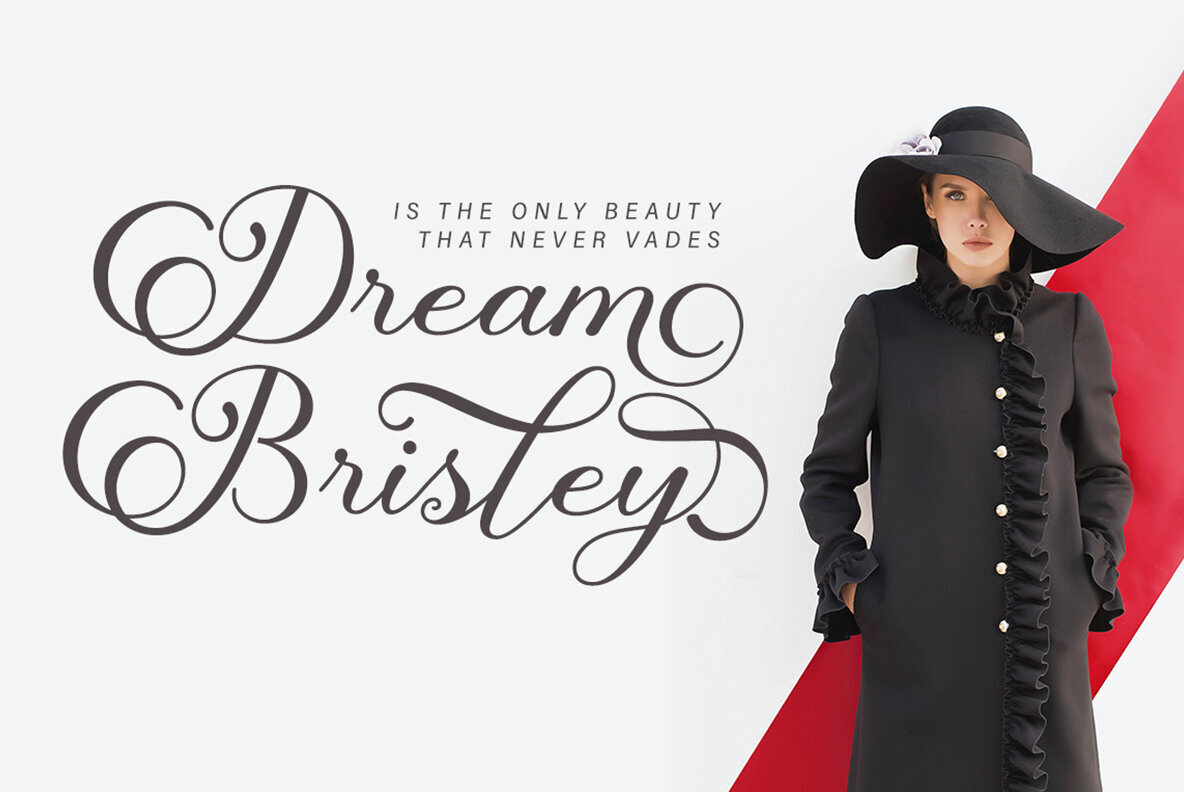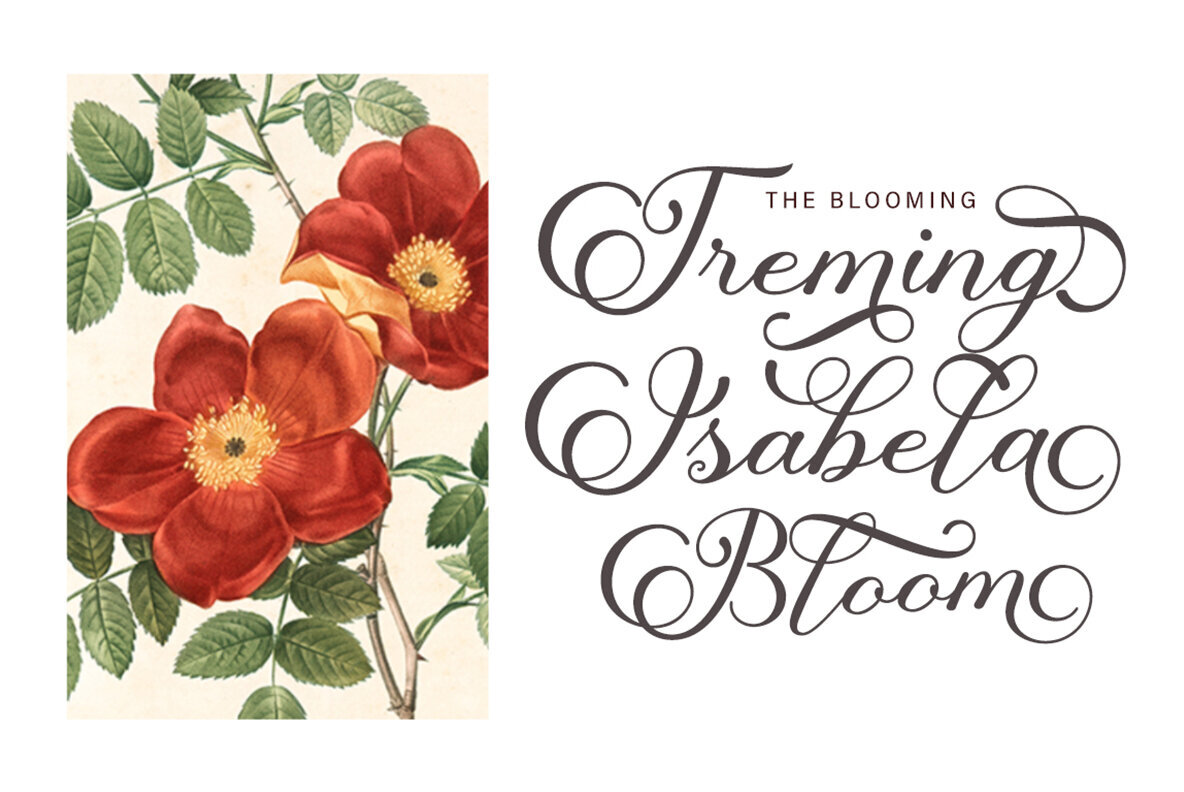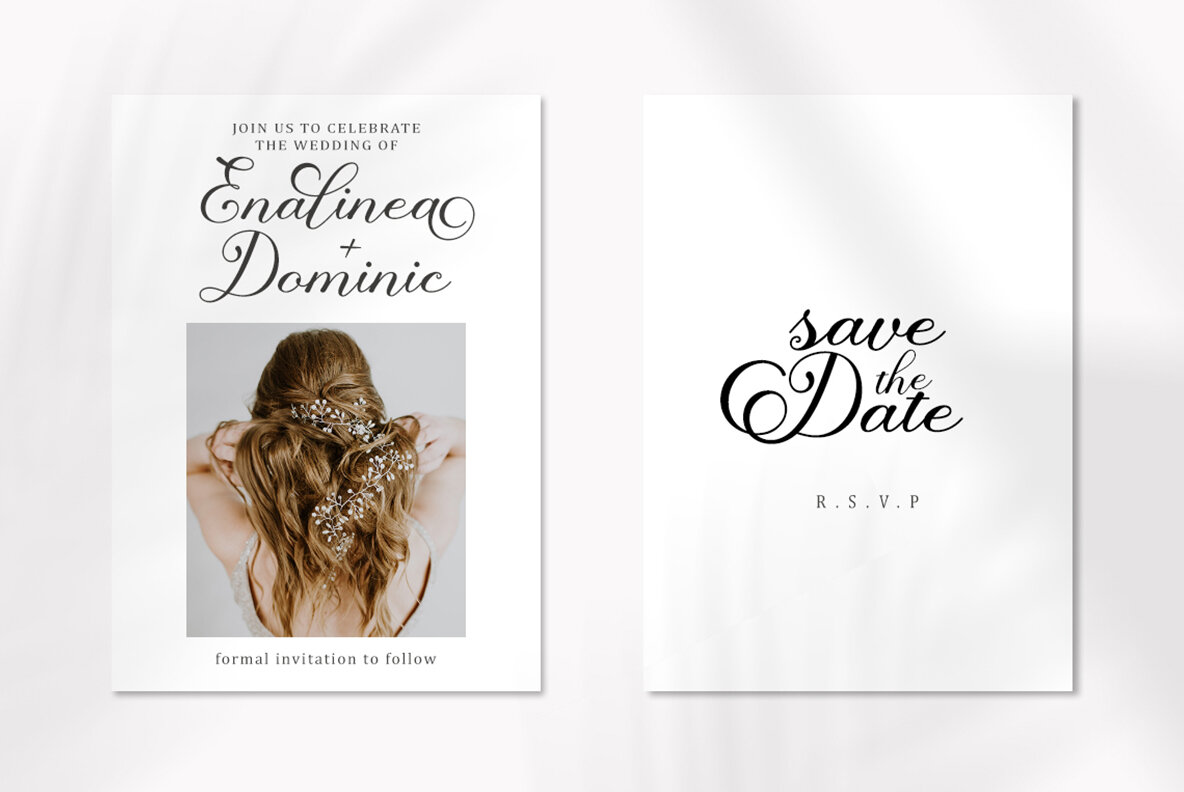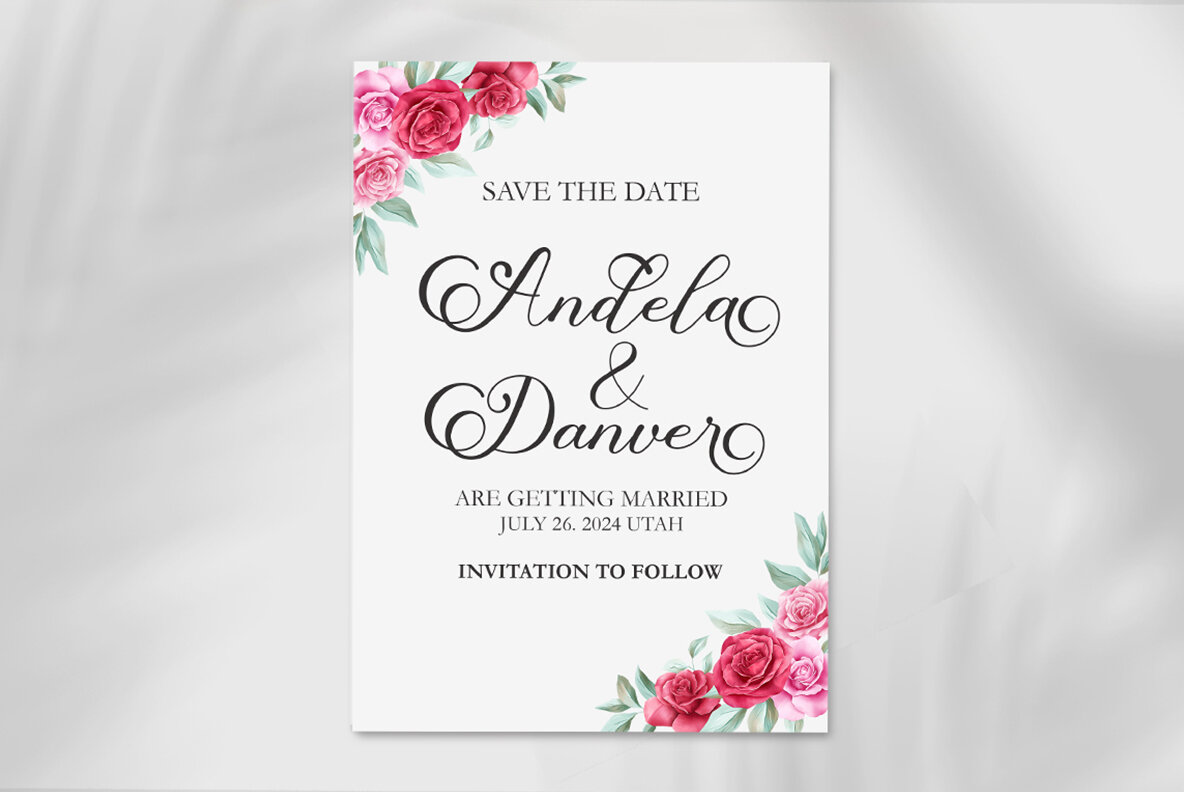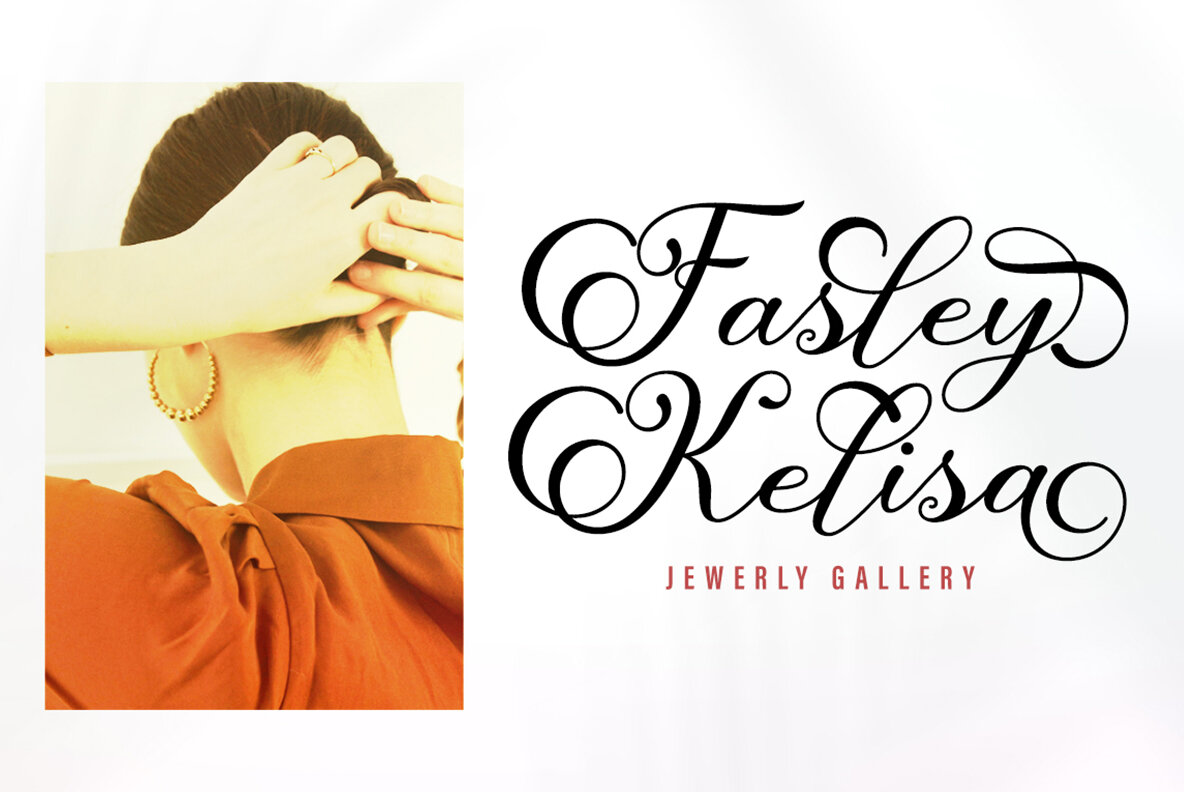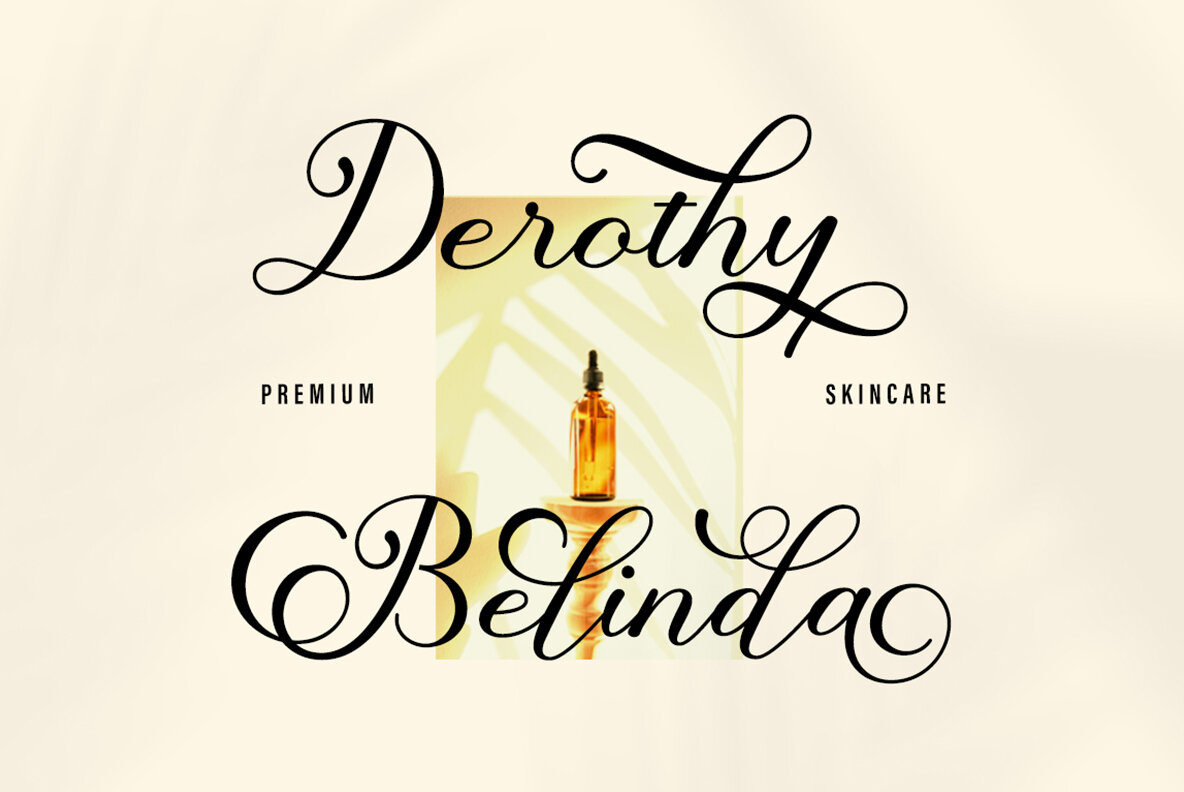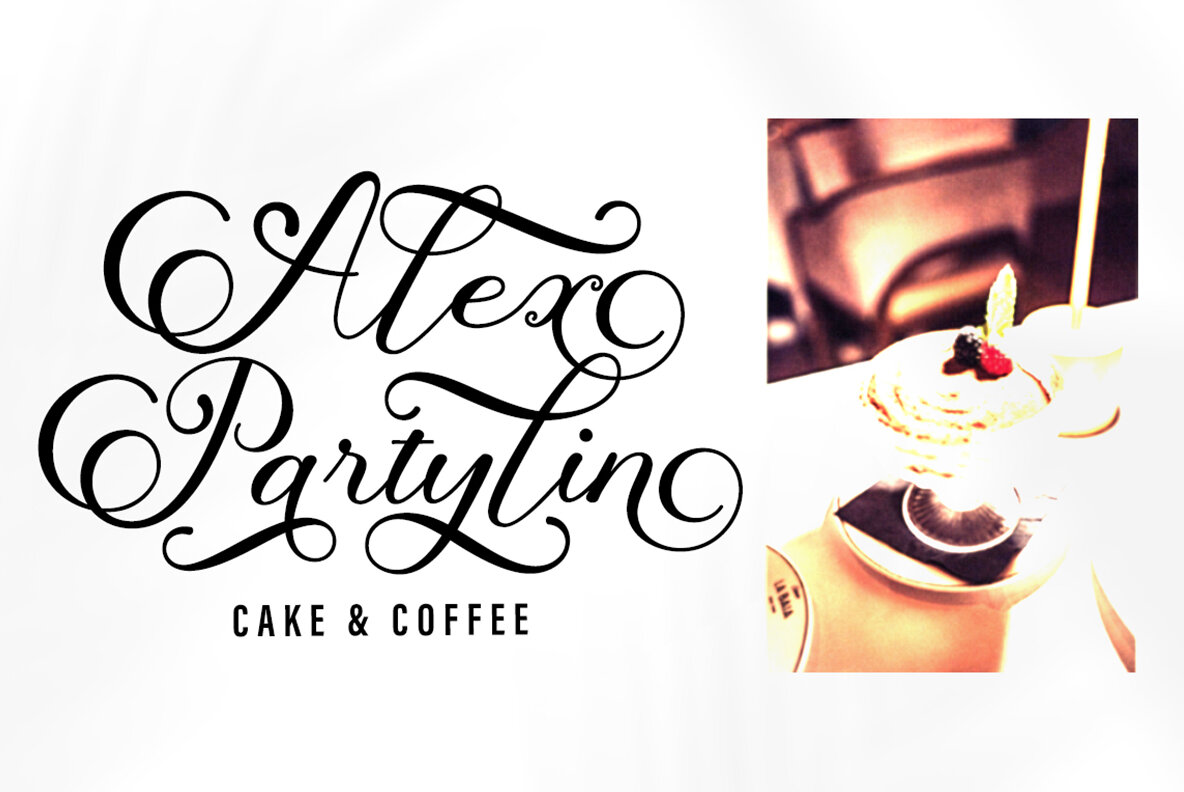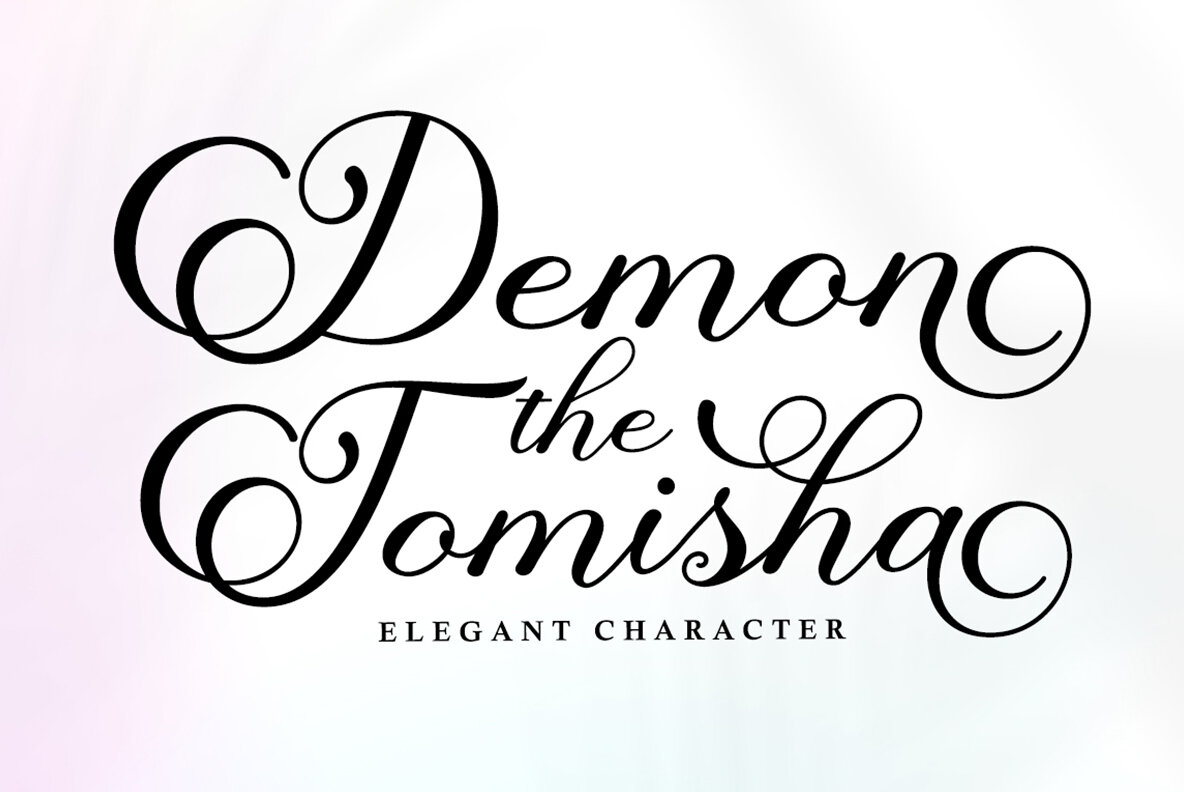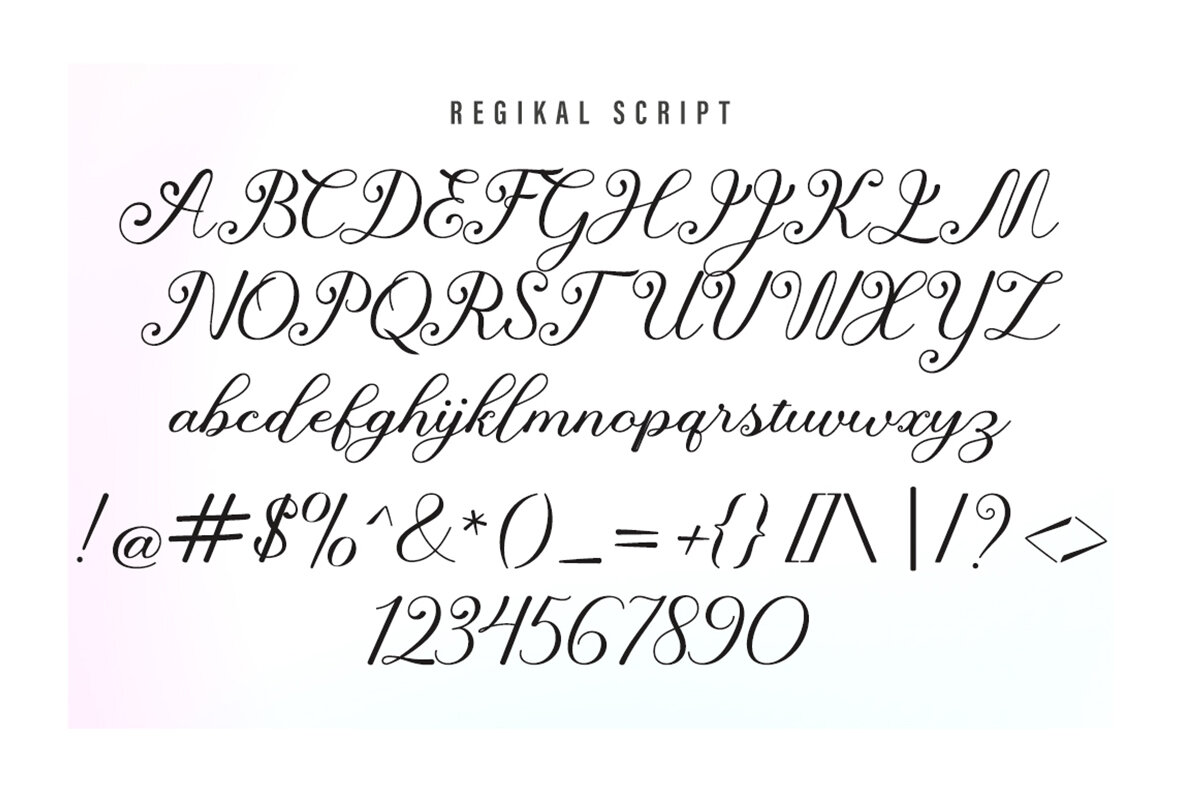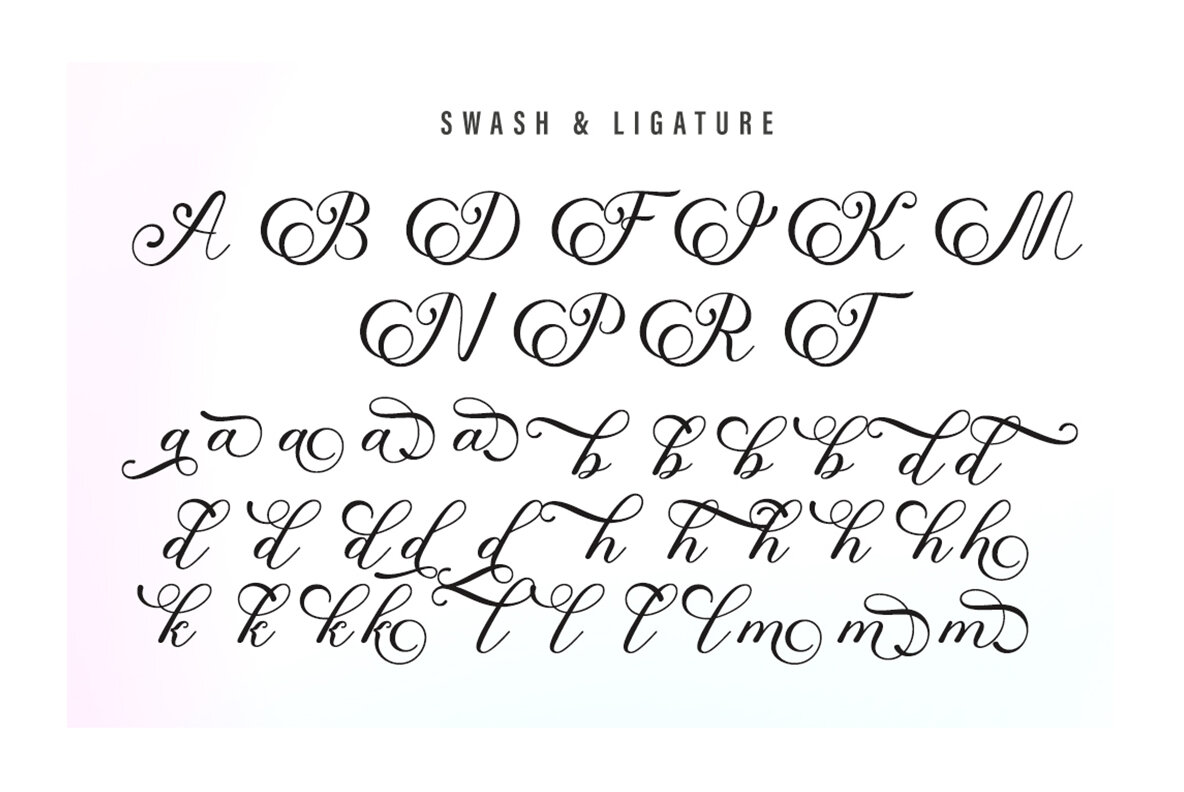
Regikal Font
Regikal Script Regular
Regikal Script is a unique blend of classic and modern calligraphy, offering a sophisticated addition to any font library. This script calligraphy font delivers the elegance of handwritten typography with a contemporary twist. Regikal Script is perfect for a variety of projects including titles, signatures, logos, wedding invitations, T-shirts, letterheads, nameplates, labels, bulletins, posters, and badges. Its adaptable design allows for creative customization across multiple mediums.Regikal Script: Classic Meets Modern Calligraphy